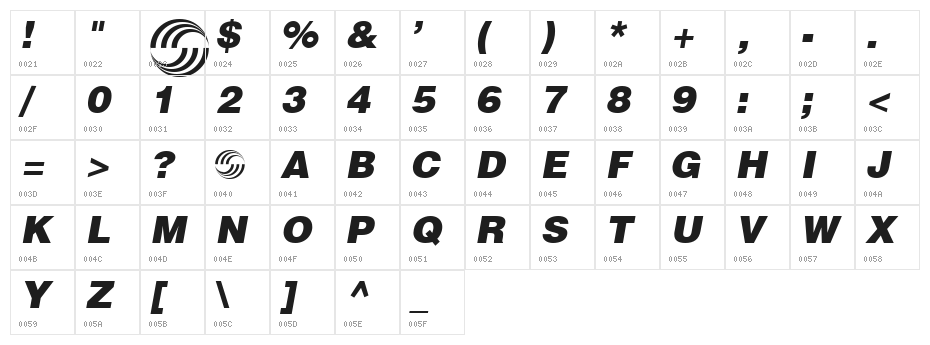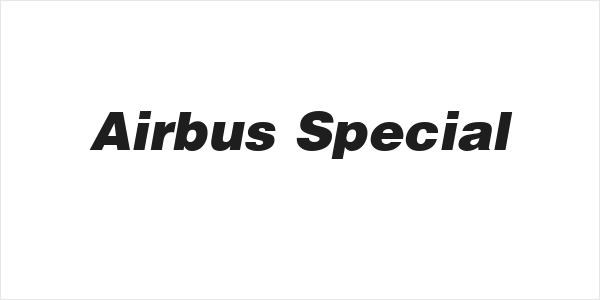
Airbus Special Font
Airbus Special Description
This font features bold, strong characters with a modern and dynamic appearance. The letters are slightly italicized, giving them a sense of motion and energy. The strokes are thick and consistent, providing a high contrast that enhances readability and impact. The overall design is clean and sans-serif, making it suitable for various contemporary applications. The character spacing is normal, ensuring clarity and legibility across different sizes. This font is versatile, capable of conveying a sense of professionalism and modernity.
Use CaseHeadlines, Logos, Branding
Proposed ProjectsIdeal for branding, advertising, headlines, and digital media where a strong, modern presence is required.